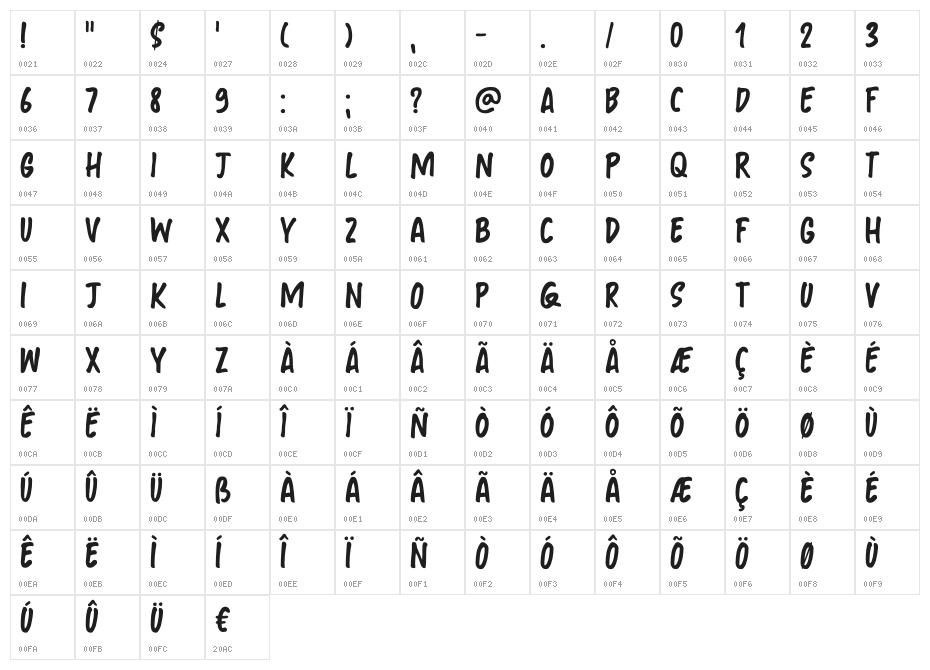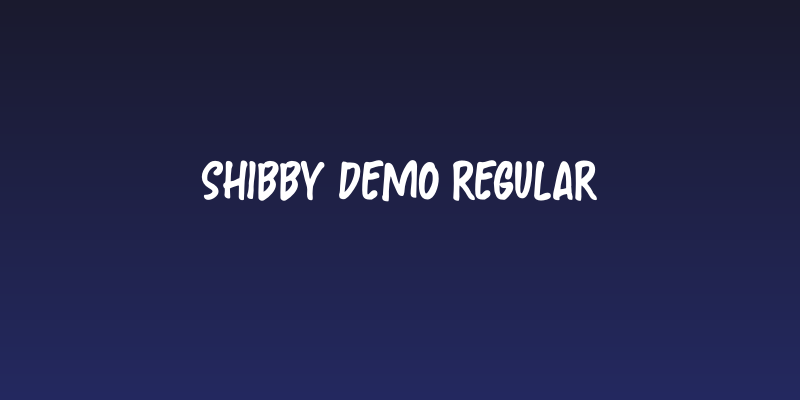
Shibby DEMO Regular Font
Shibby DEMO Regular Description
This font features a playful and energetic style, characterized by its bold and rounded letterforms. The strokes are thick and consistent, giving it a strong presence on the page. The letters are slightly slanted, adding a dynamic and informal feel. The font includes both uppercase and lowercase letters, numbers, and a selection of special characters, including playful hand gestures. The overall design is reminiscent of casual handwriting, making it suitable for projects that require a fun and approachable aesthetic.
| Proposed Projects | Ideal for children's books, playful branding, casual invitations, and social media graphics. |